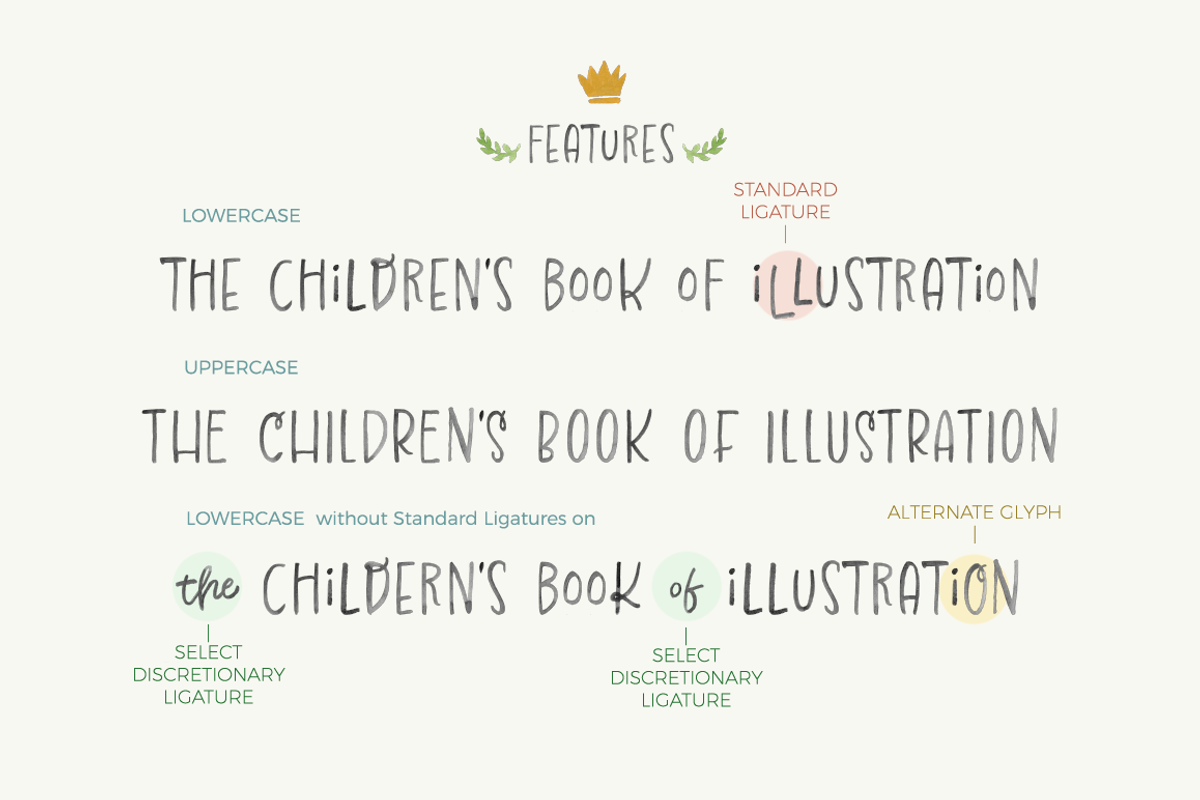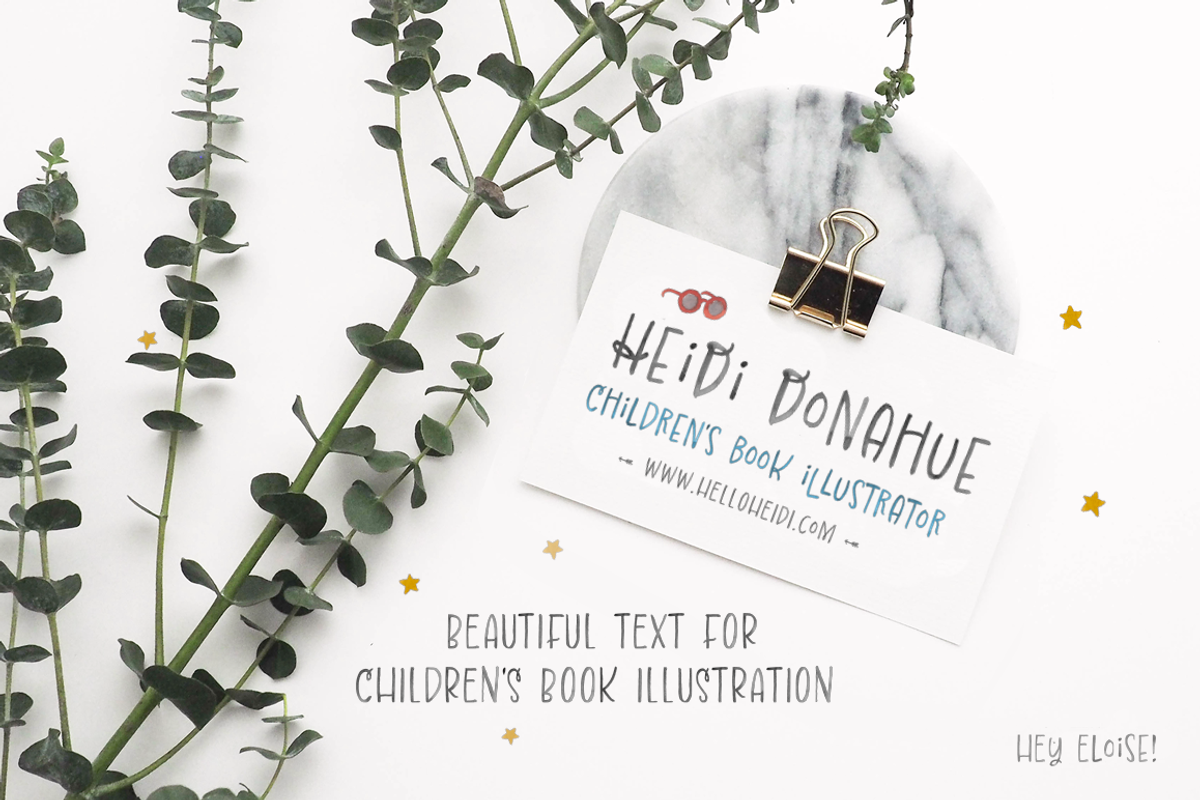
Hey Eloise! Watercolor SVG
"My name is Eloise! I like to do lots of things....share pithy quotes on greeting cards, proudly promote cool businesses "LOOK at this!", read good books (especially those with adorable art).
I was created by hand with a brush & palette. Variegated Grey is the color I was born in, but you can change me into any color you like. Here's how: rasterize text adjust hue & saturation = any color you wish me to be. I will retain my naturally inky variations.
Hey Eloise a single-case font! Meaning, I speak in ALL-CAPS all the time. ¿No hablo inglés? No problem, I speak multiple European based languages. Additionally, I arrive with stylistic & discretionary ligatures plus bonus alternate glyphs you can access through the glyphs palette in Ps. I'm easy to personalize through my OpenType features. Can't wait to create beautiful things together. " - Love, Eloise
Yes, she's very particular. I suspect you are as well. If Photoshop is your program of choice, you'll find her a swell companion. She's a great typeface to pair with illustrations. As a matter of fact, adding handlettered text to illustrations is why she was created. Enjoy!